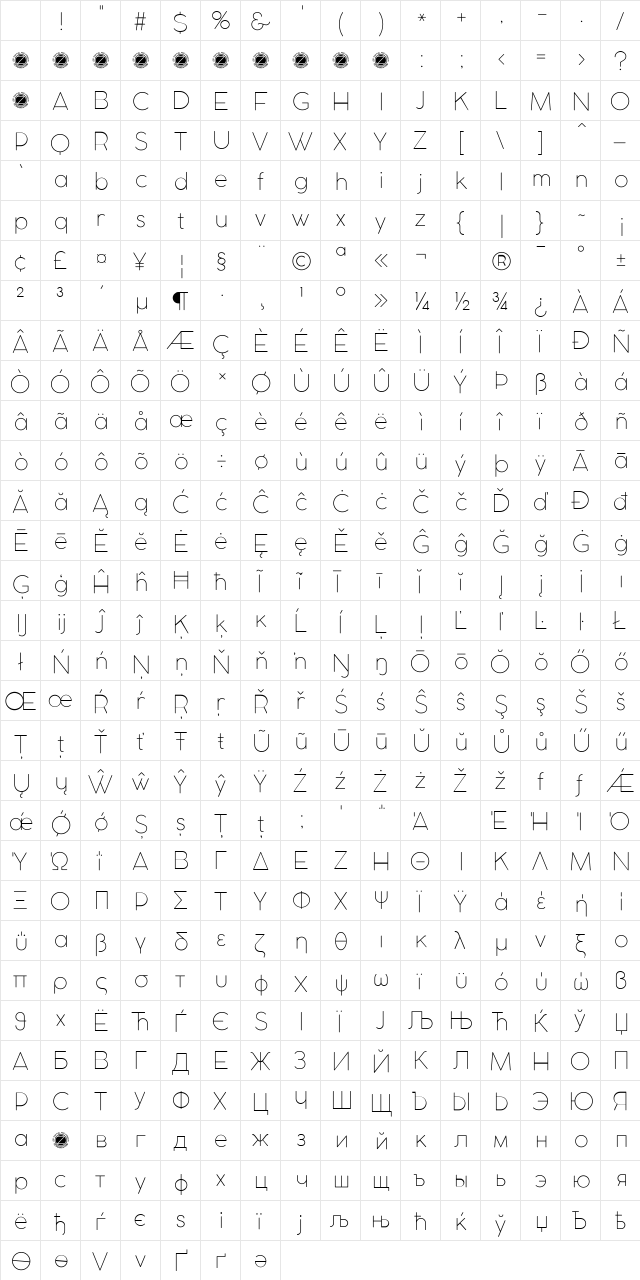
Complete COCOMAT UltraLight glyph index. Displaying only characters natively supported by COCOMAT UltraLight font.
COCOMAT is a composed and adaptable typeface that performs quietly and consistently across a wide range of design contexts. Its slender proportions lend an understated elegance to any composition.